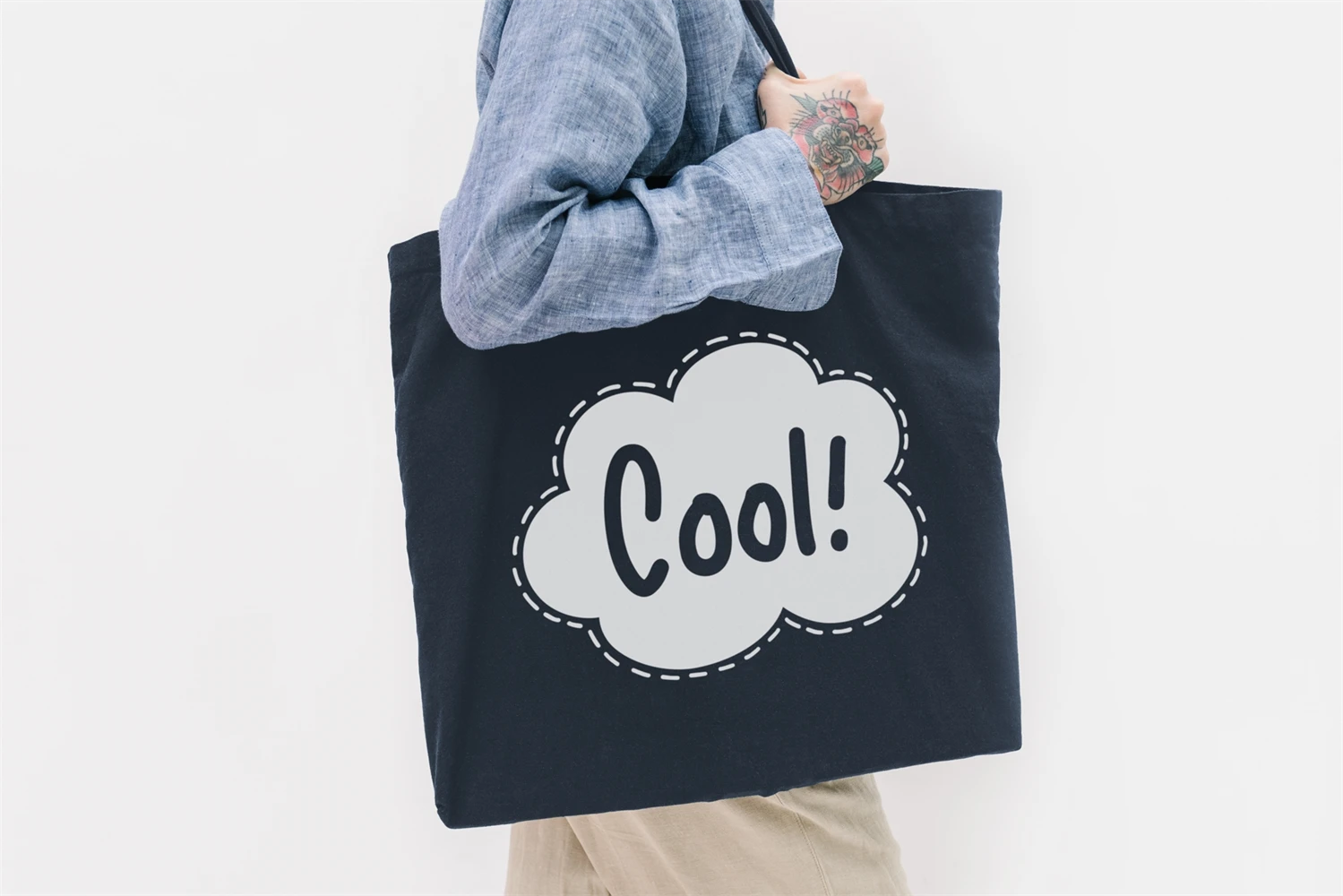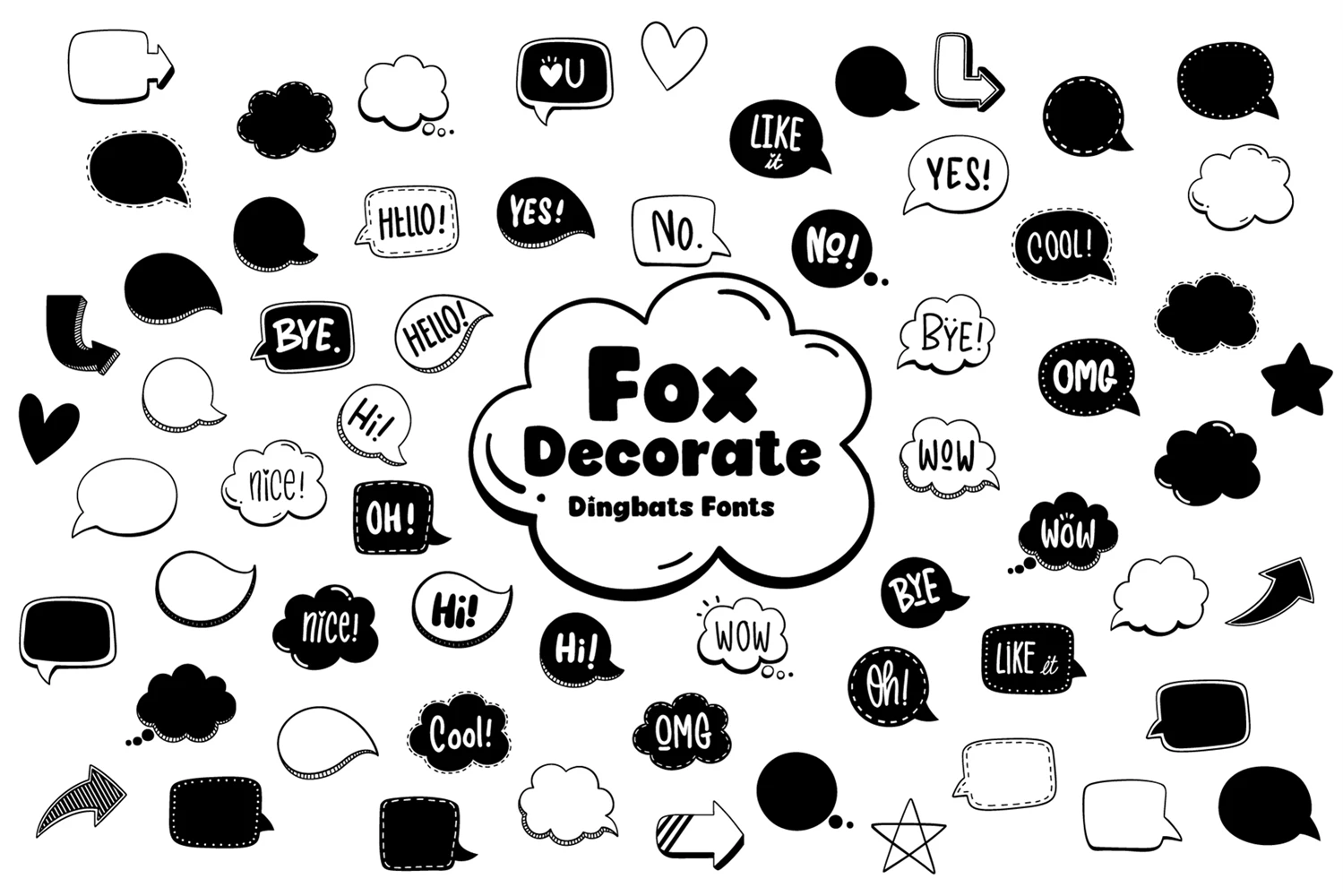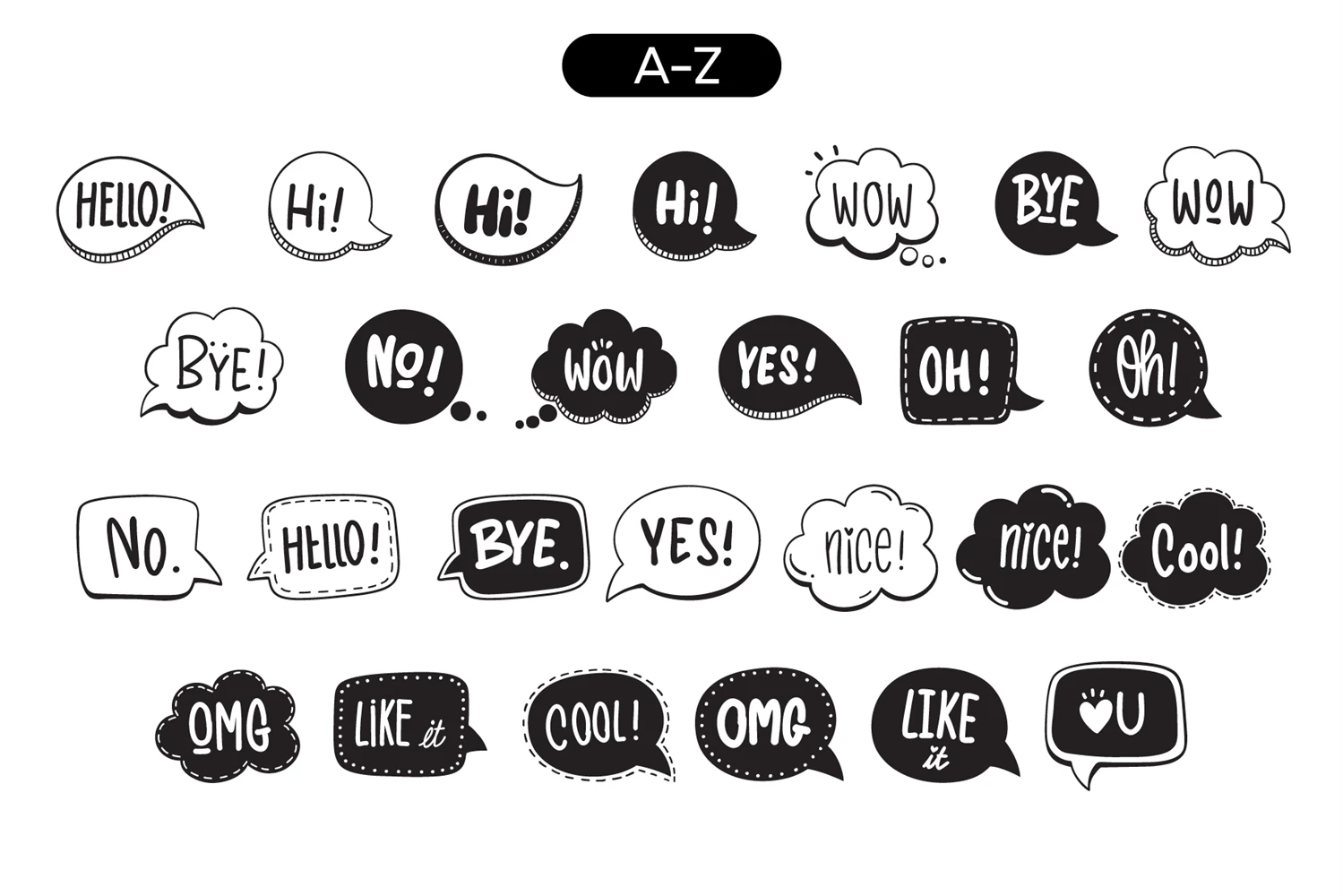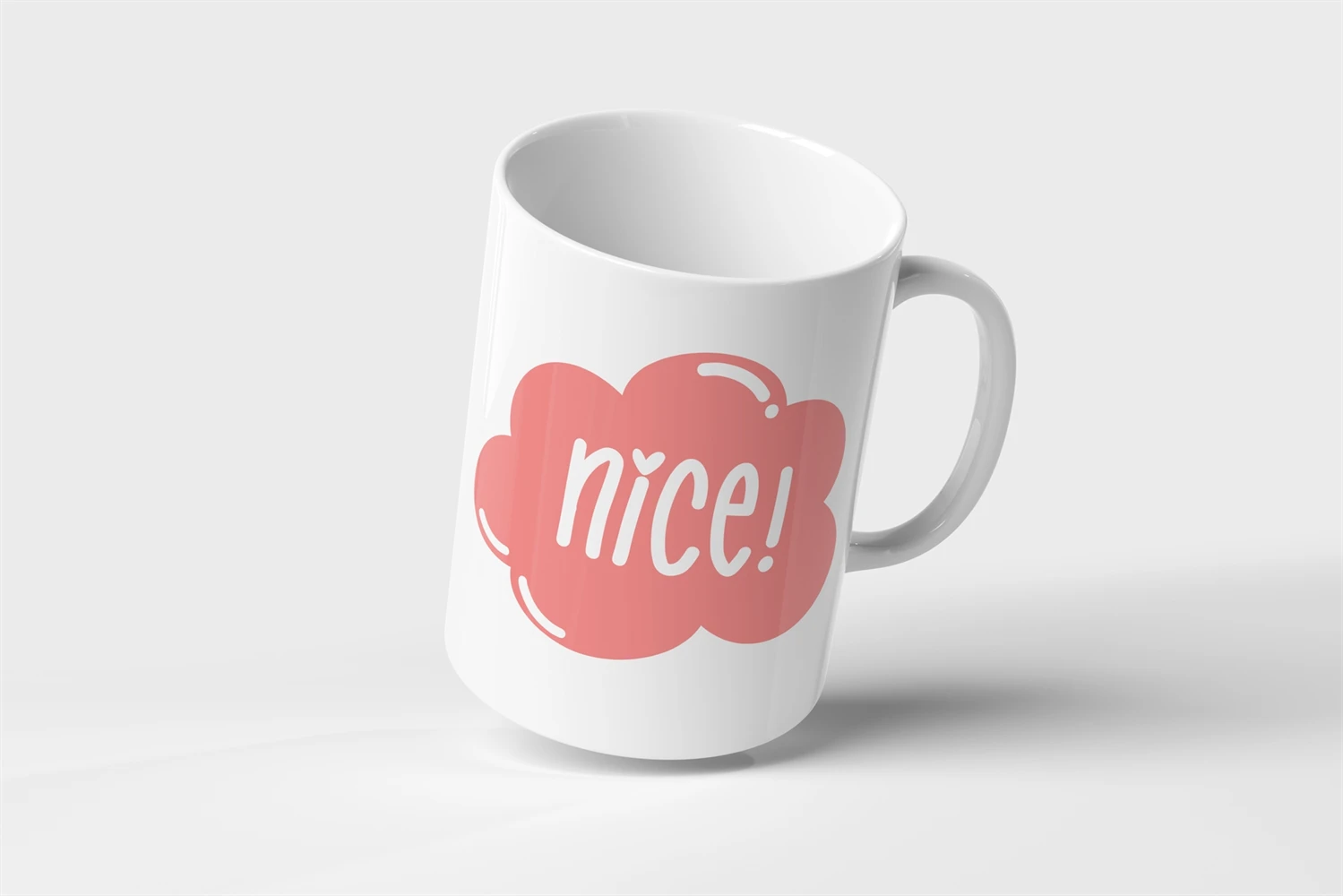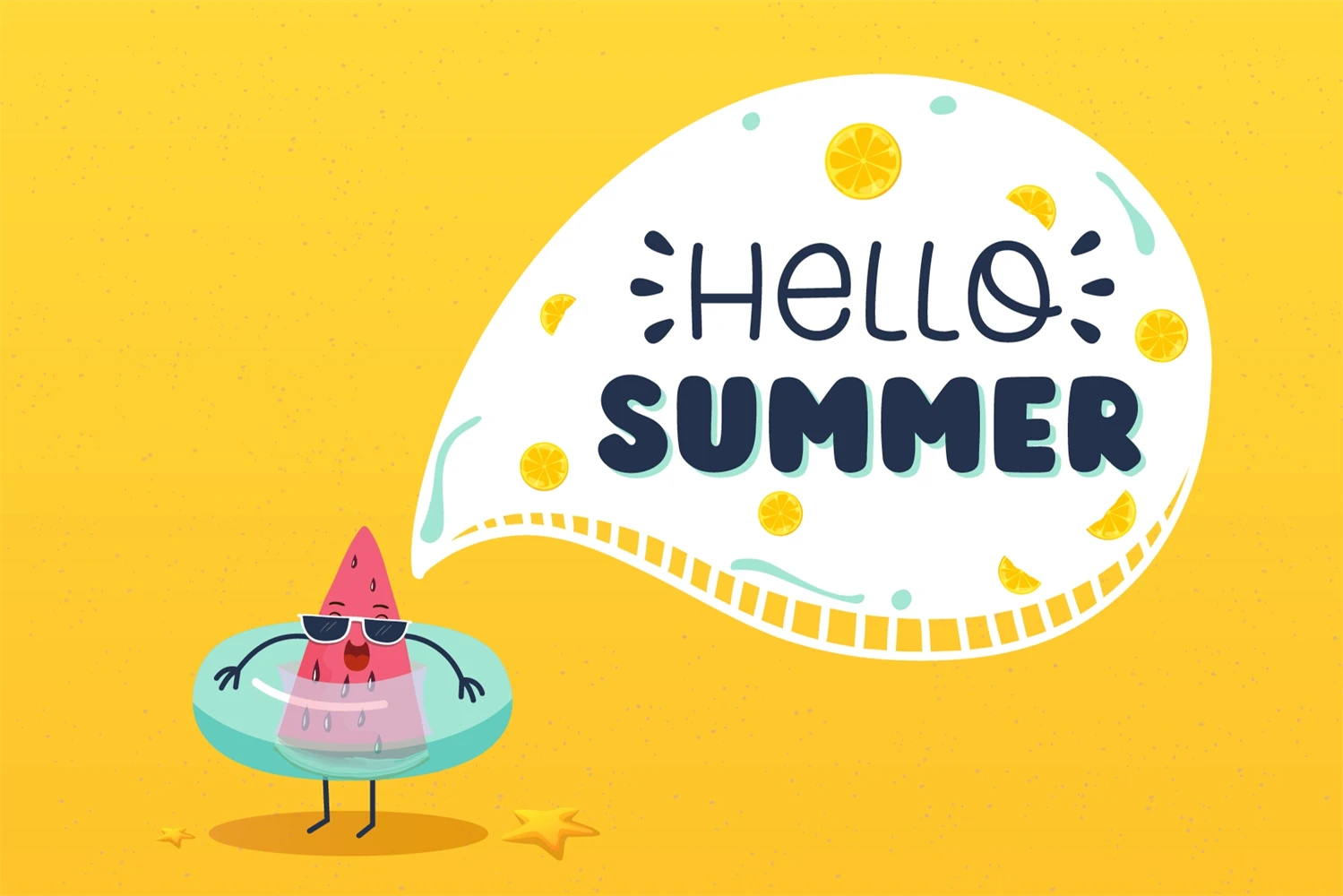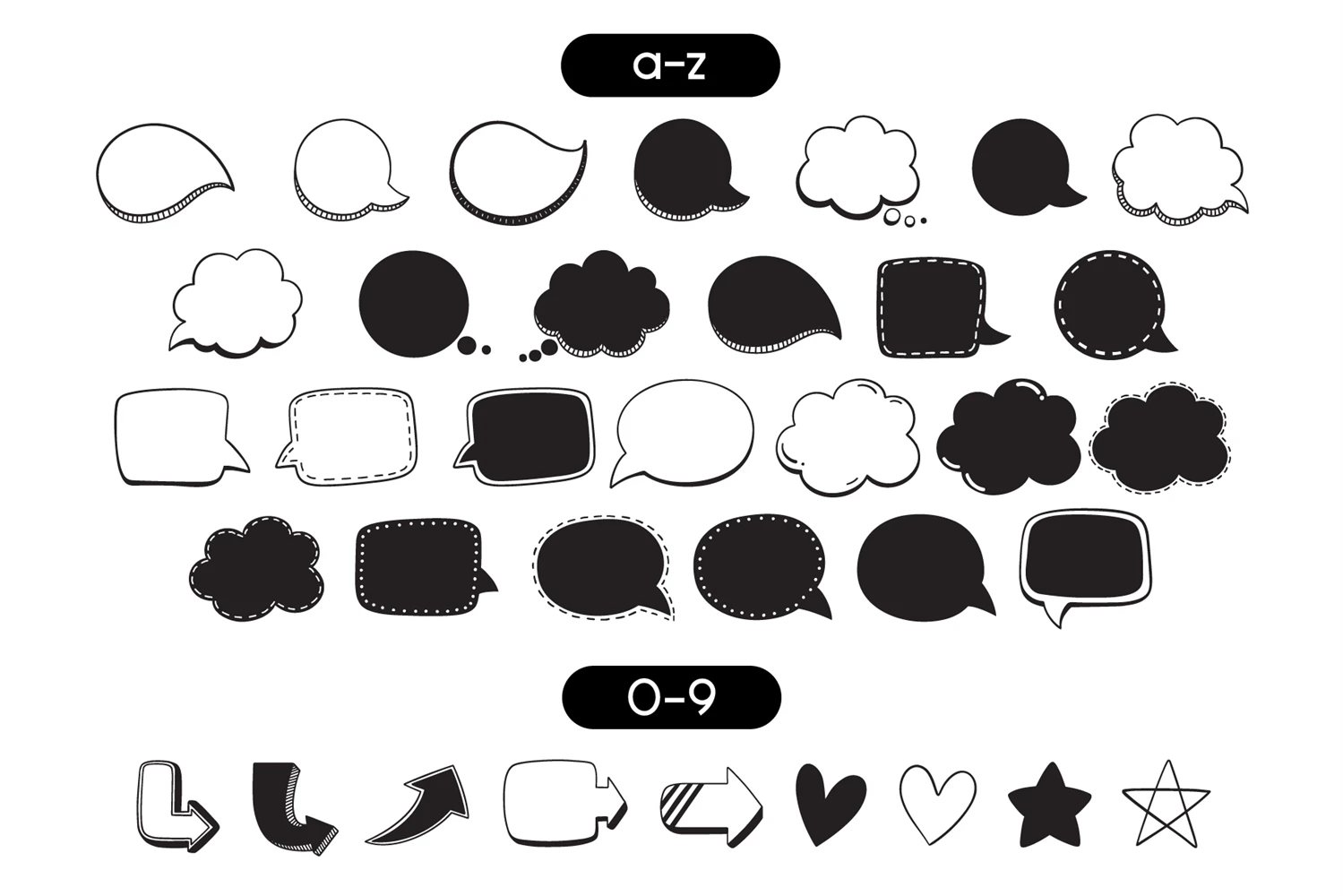
Fox Decorate is a fun and cute dingbat font. That can be used for a variety of purposes, be it decorating designs or decorating plans. Add them to your creative ideas and make your designs outstanding!